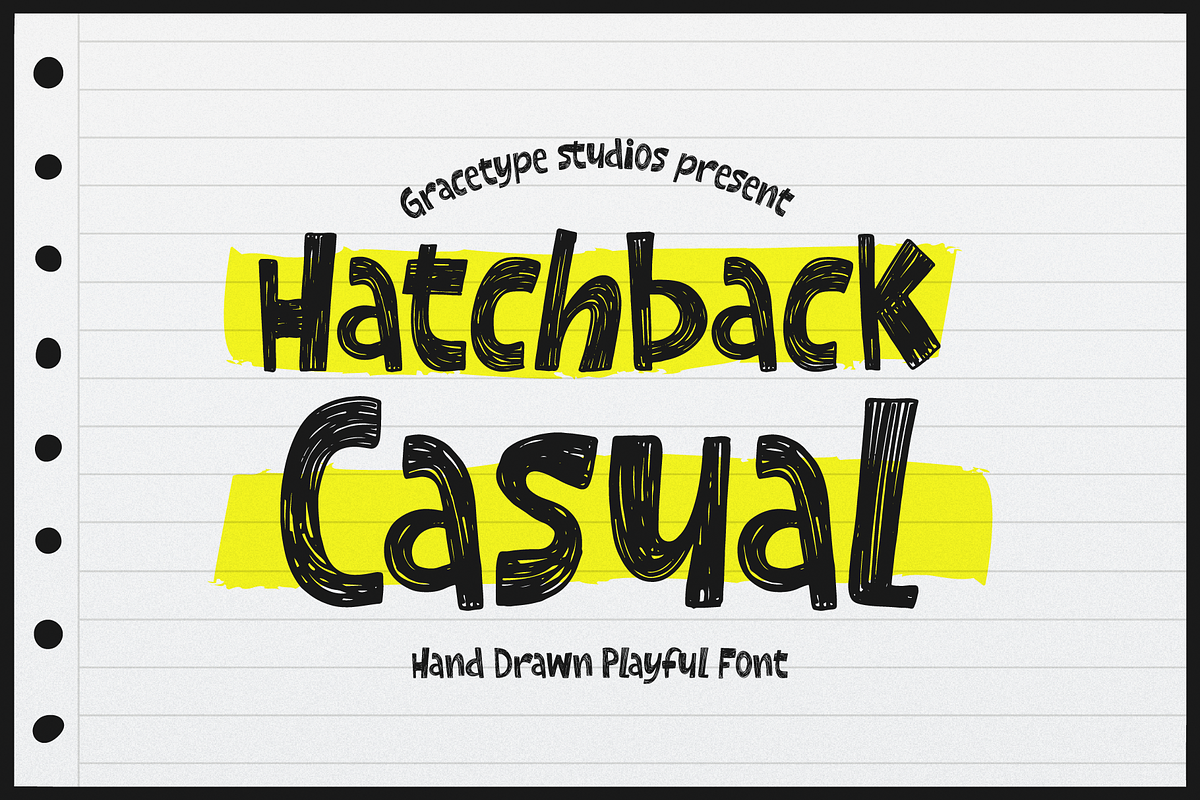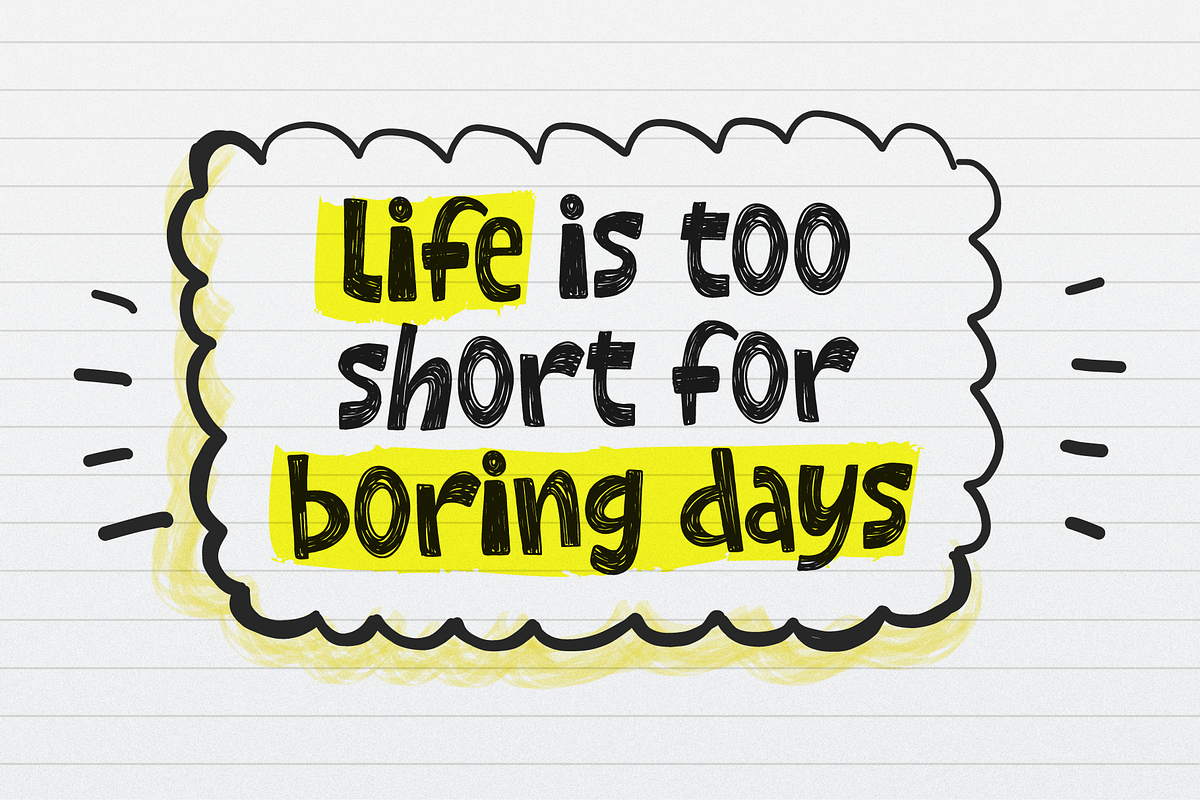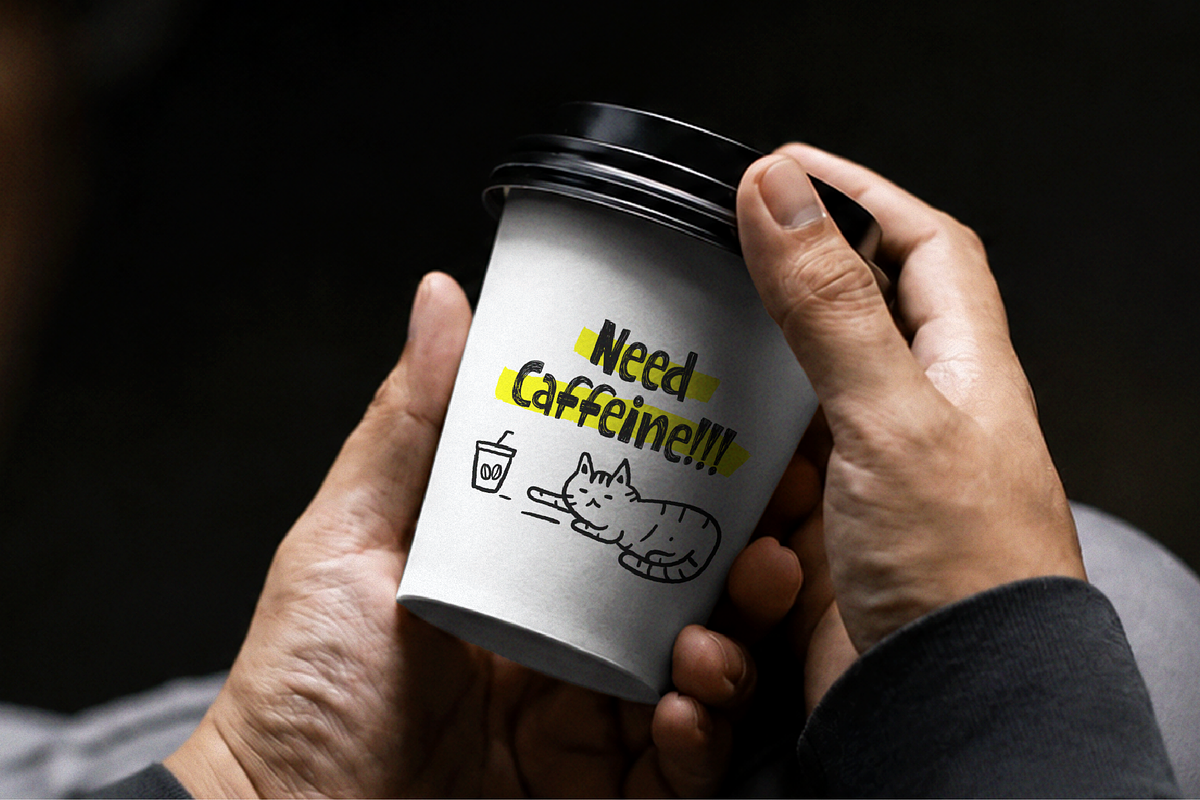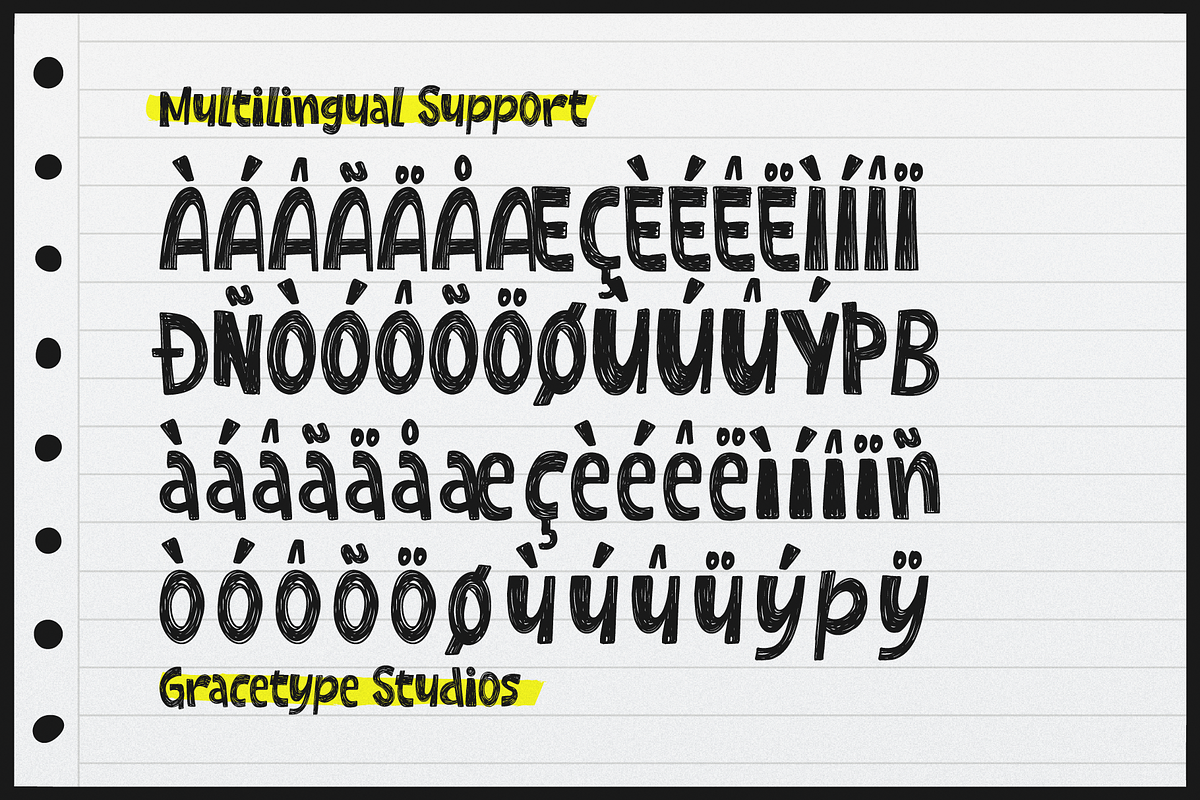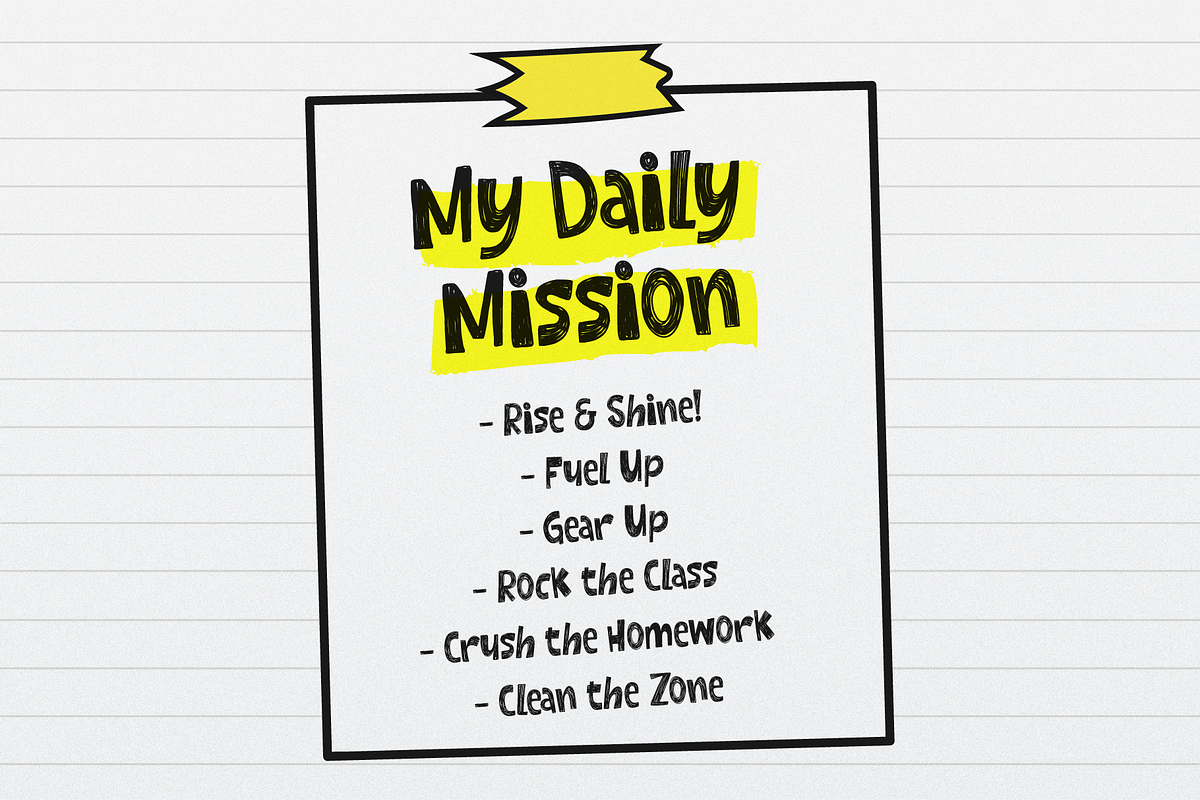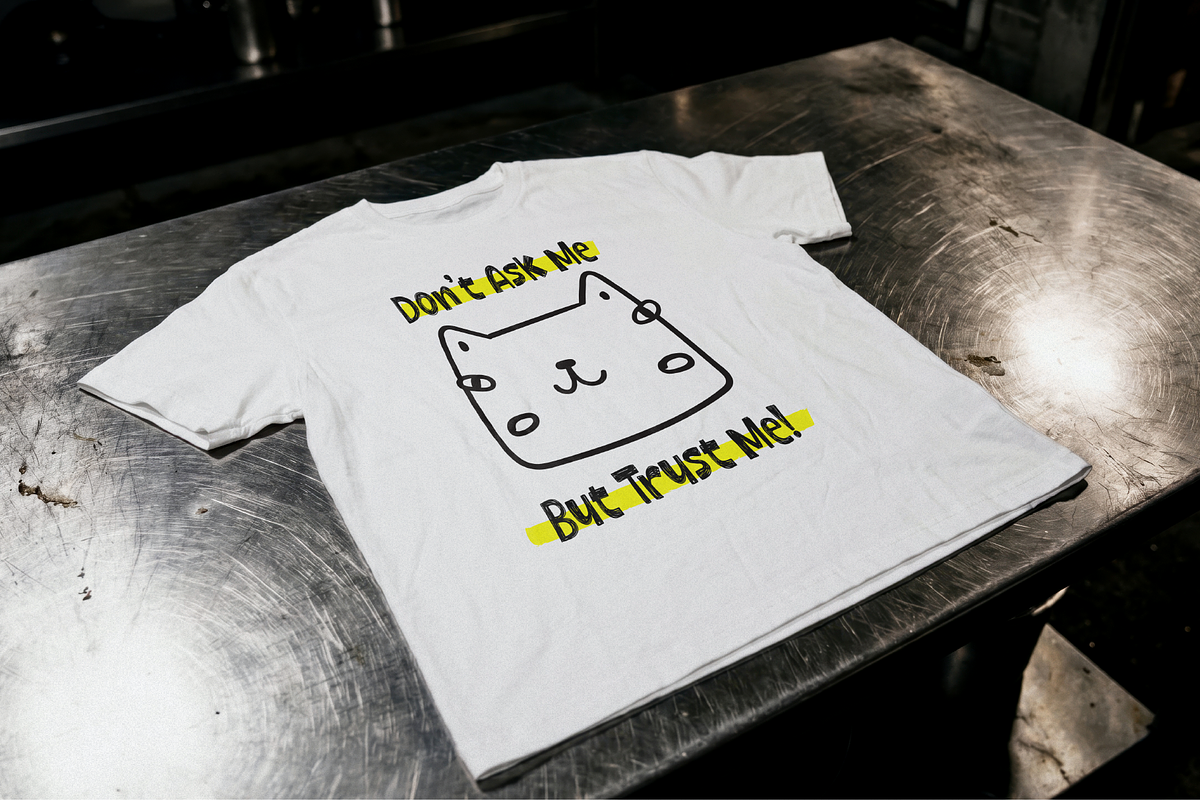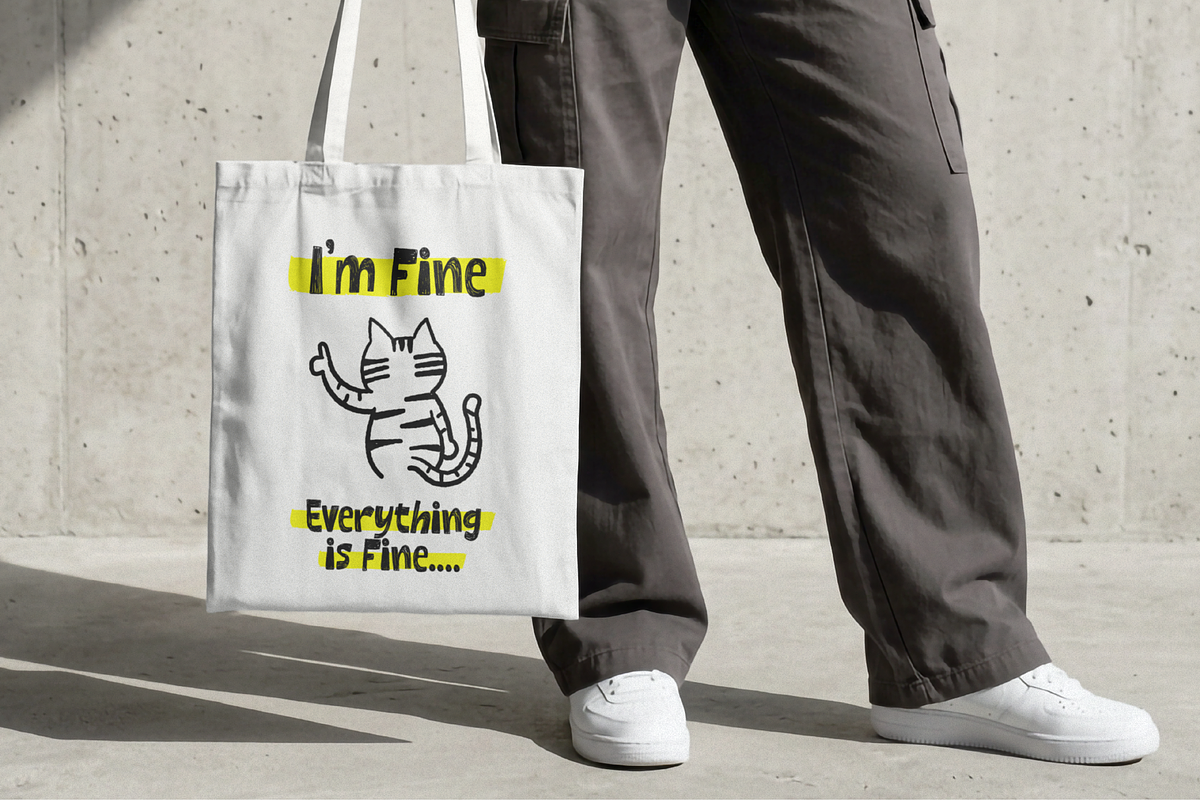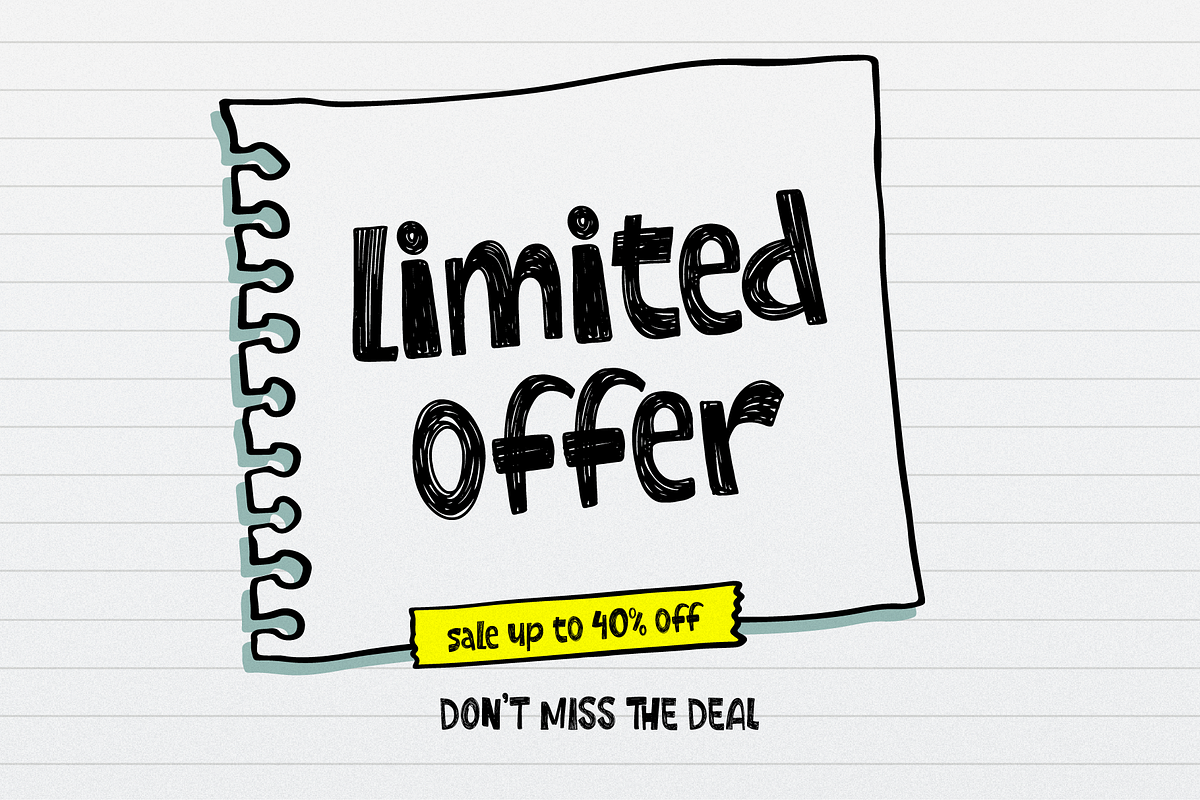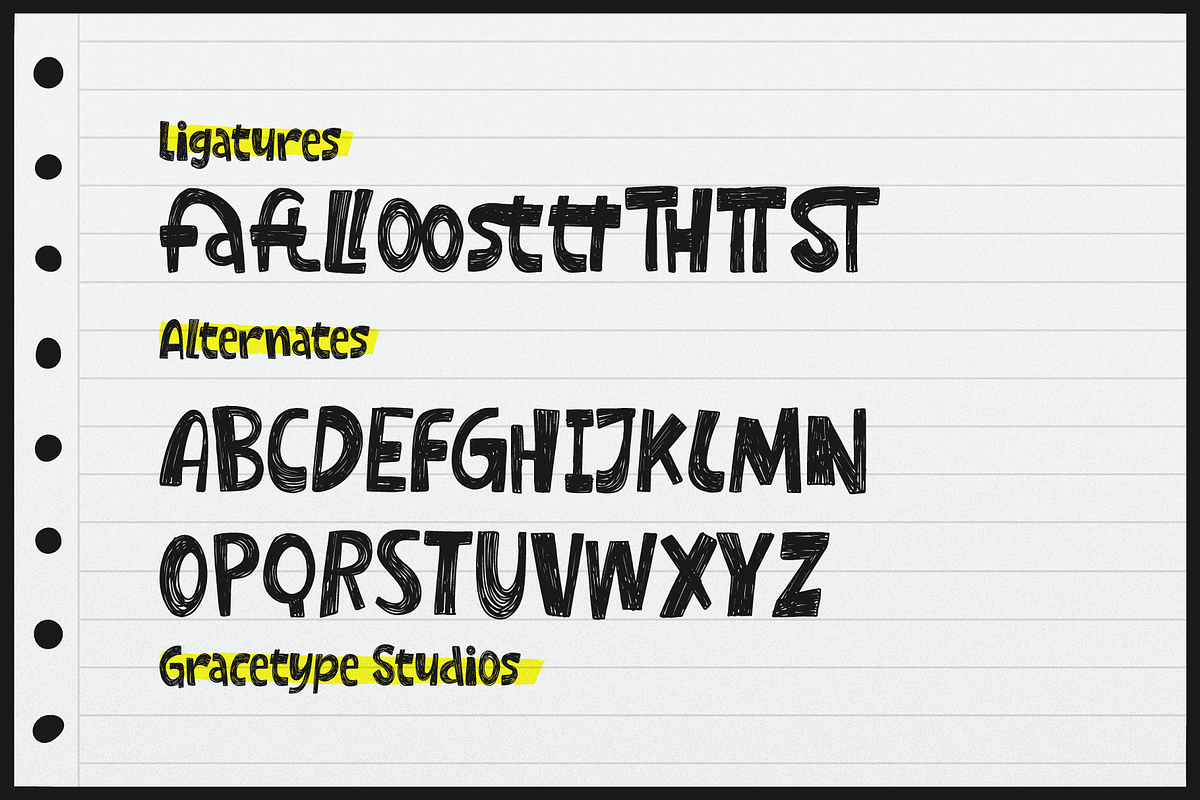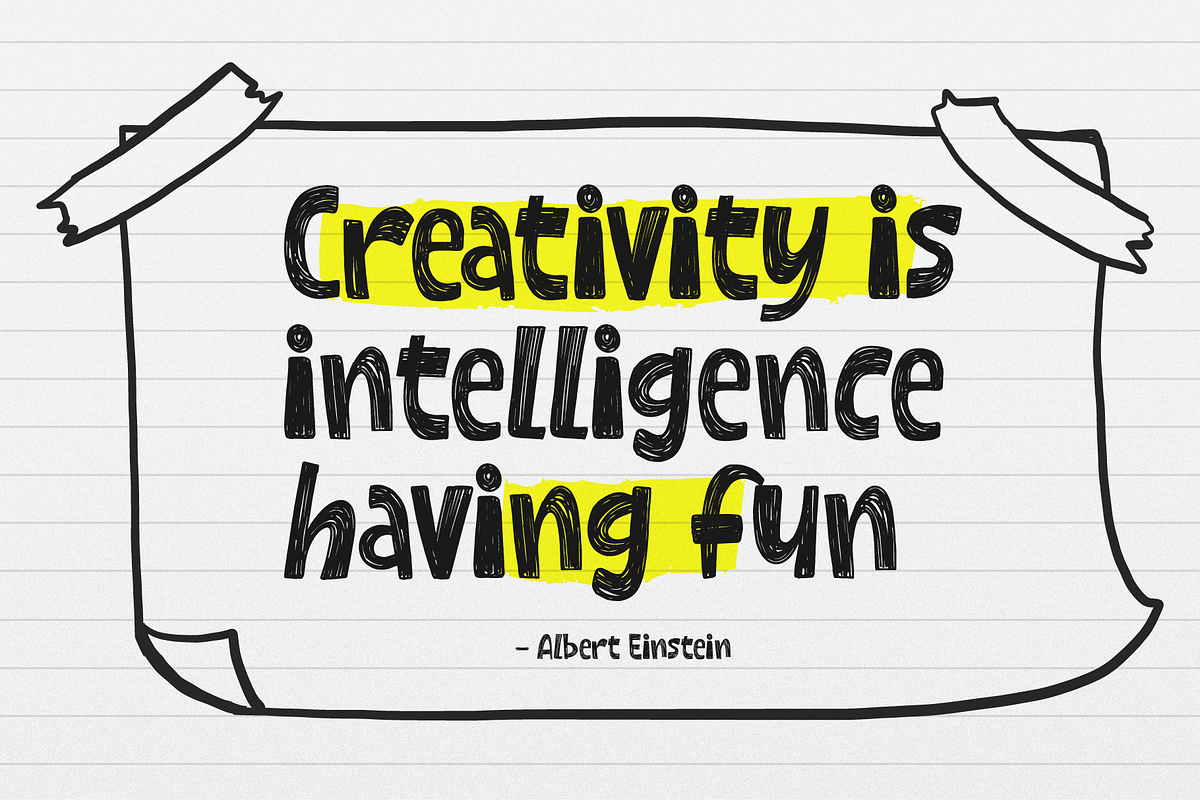
Hatchback Casual Hand Drawn Playful
**Hatchback Casual | Hand Drawn Playful, from Gracetypestudio, suitable for any projects such as: logos, branding projects, homeware designs, product packaging, mugs, quotes, posters, shopping bags, t-shirts, book covers, name card, invitation cards, greeting cards, label, photography, watermark, special events, and all your other lovely projects that need a Hand Drawn **taste.
Standard glyphs
Alternate and Ligature
Fonts include multilingual support